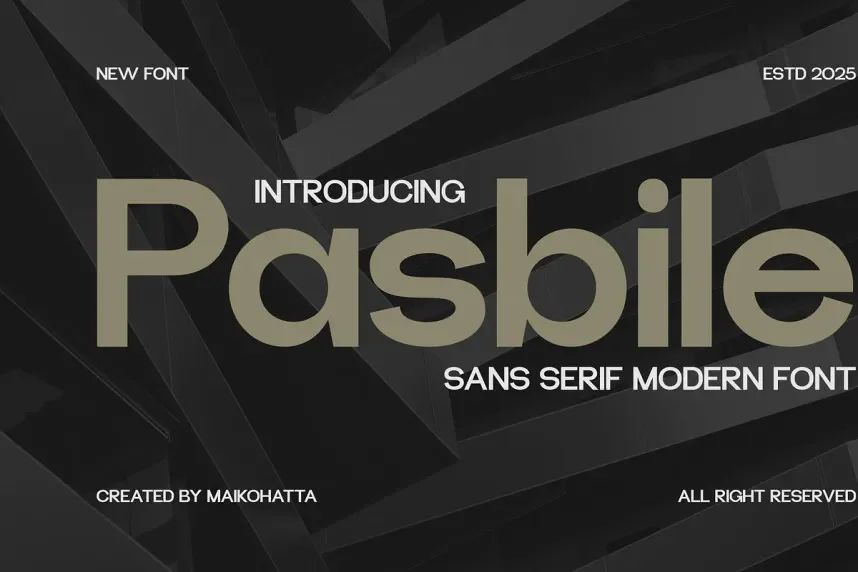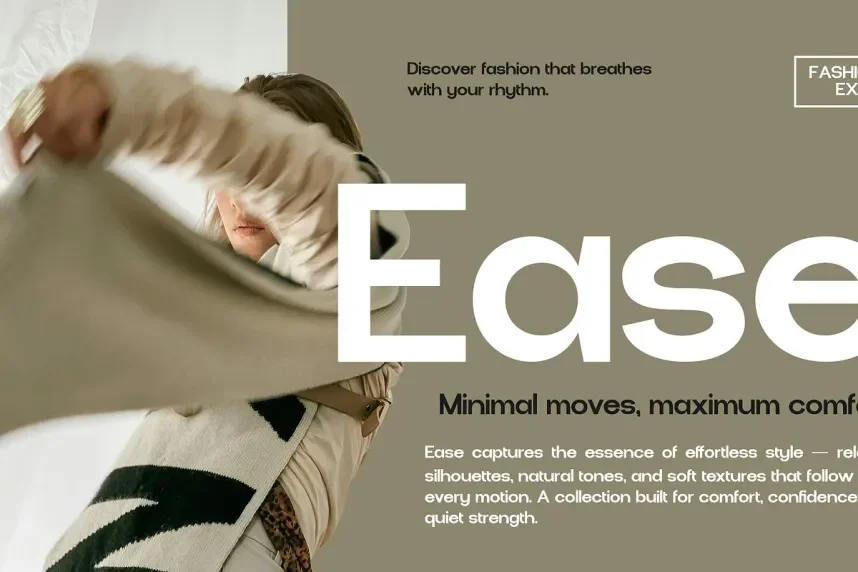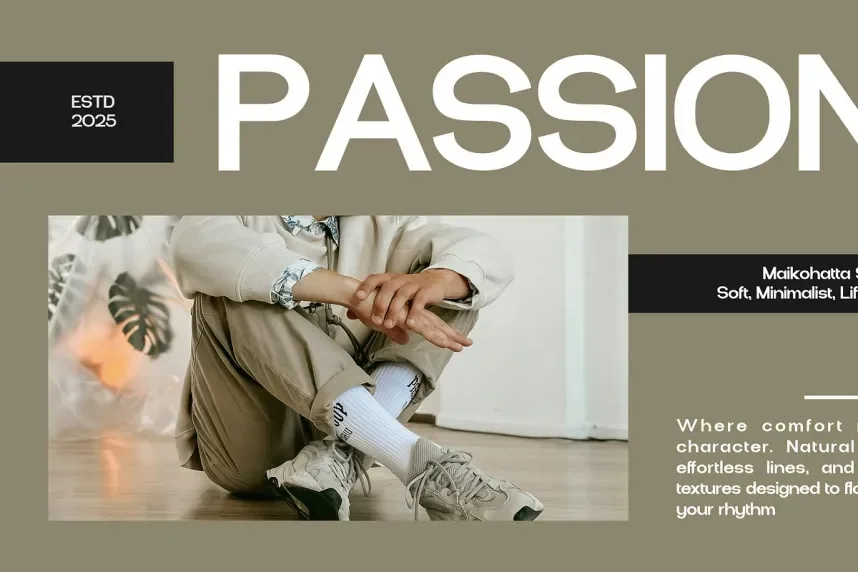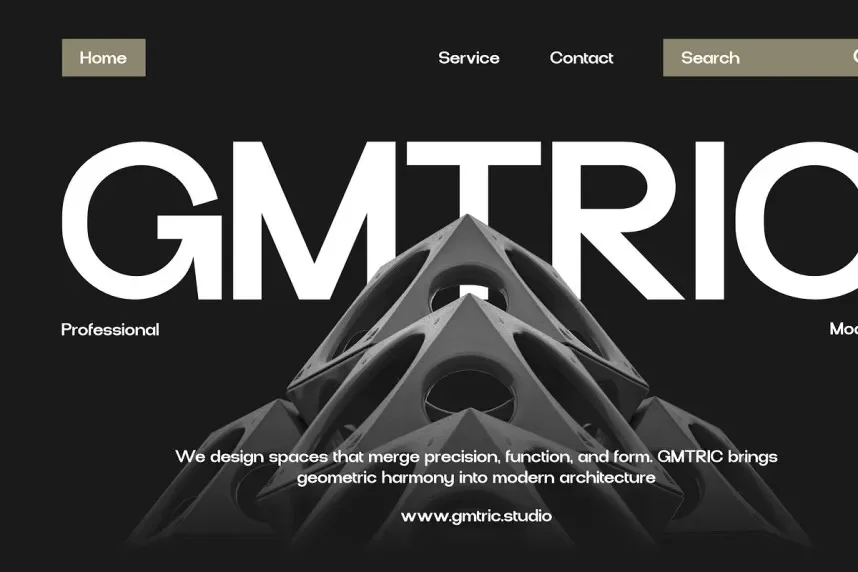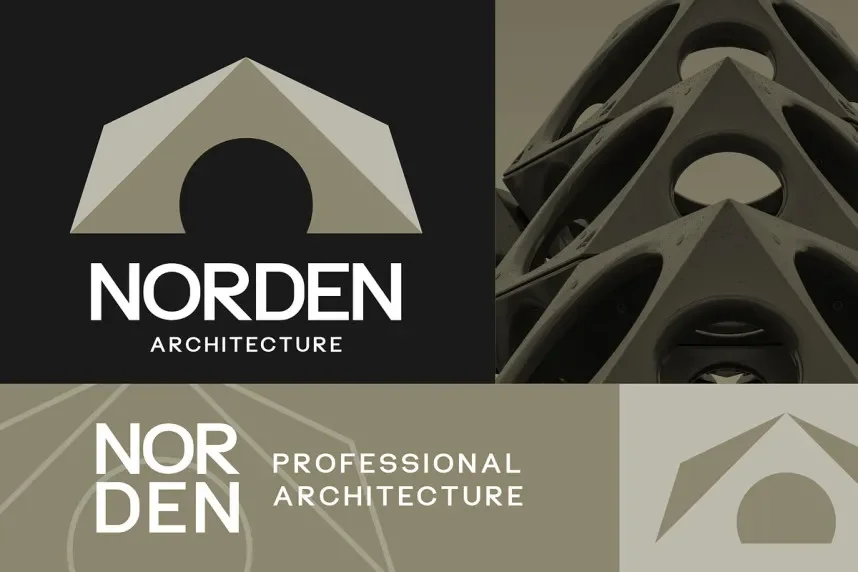
Pasbile Font is a script-style typeface with smooth curves, light stroke variation, and connected letterforms. The characters lean slightly forward, mimicking natural handwriting. It includes basic ligatures that improve flow between letters while keeping words readable. The overall structure supports short text rather than long paragraphs.